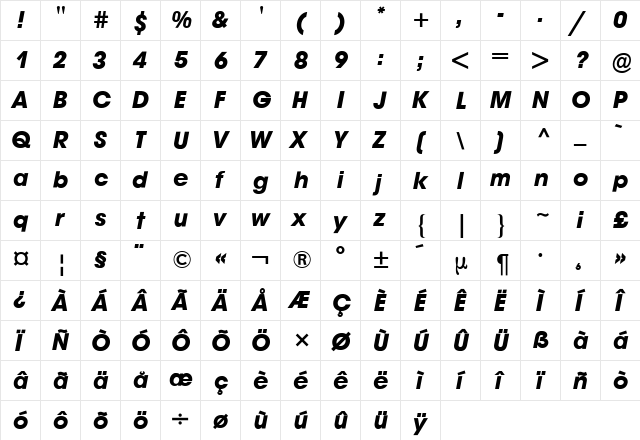
Avant Garde BQ Roman Italic
Design Context for Avant Garde BQ Typeface
Avant Garde BQ takes a measured approach to typography — its balanced proportions and neutral character make it a reliable workhorse for both digital and print work. The dynamic lean of this cut emphasises speed and emphasis in any layout.